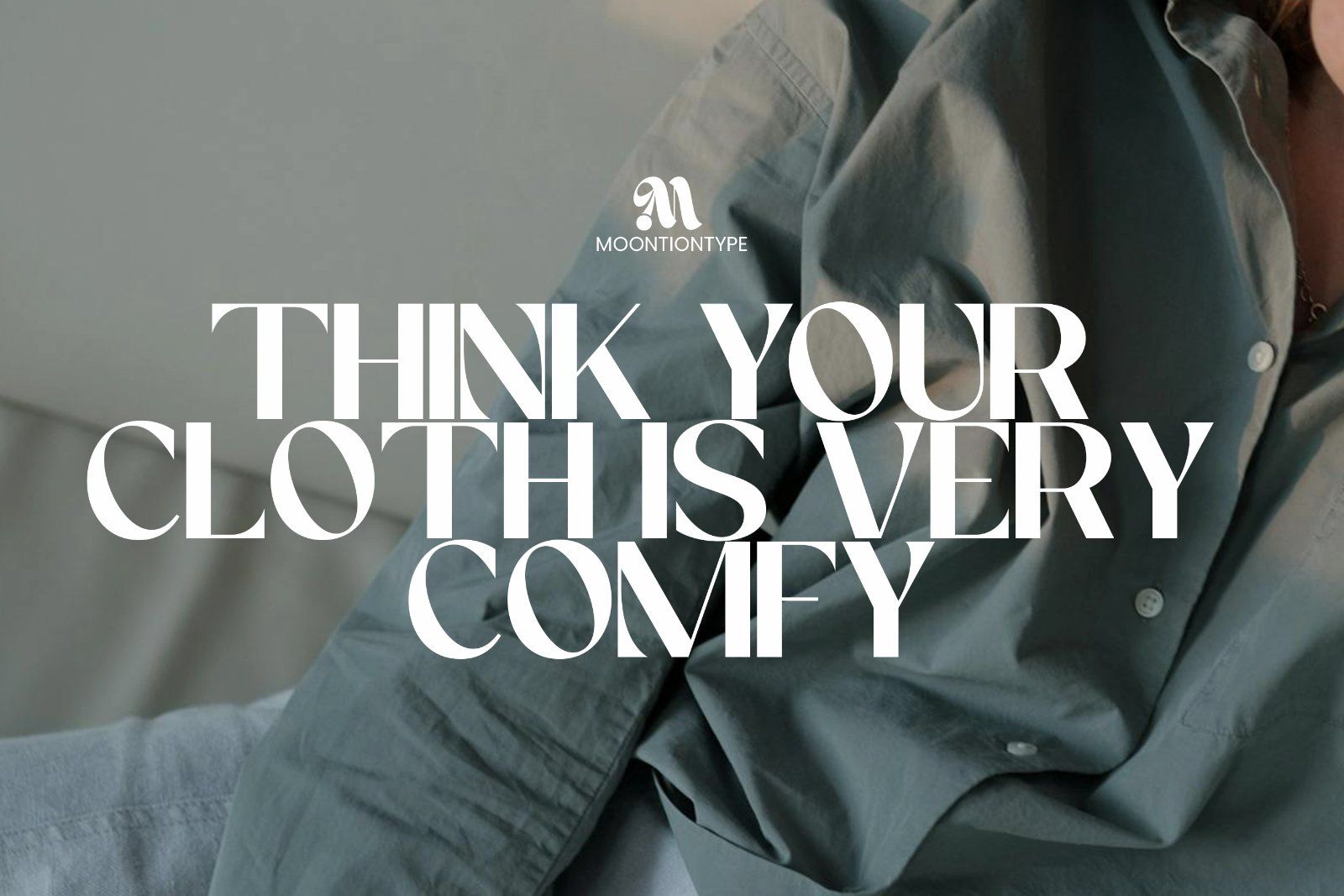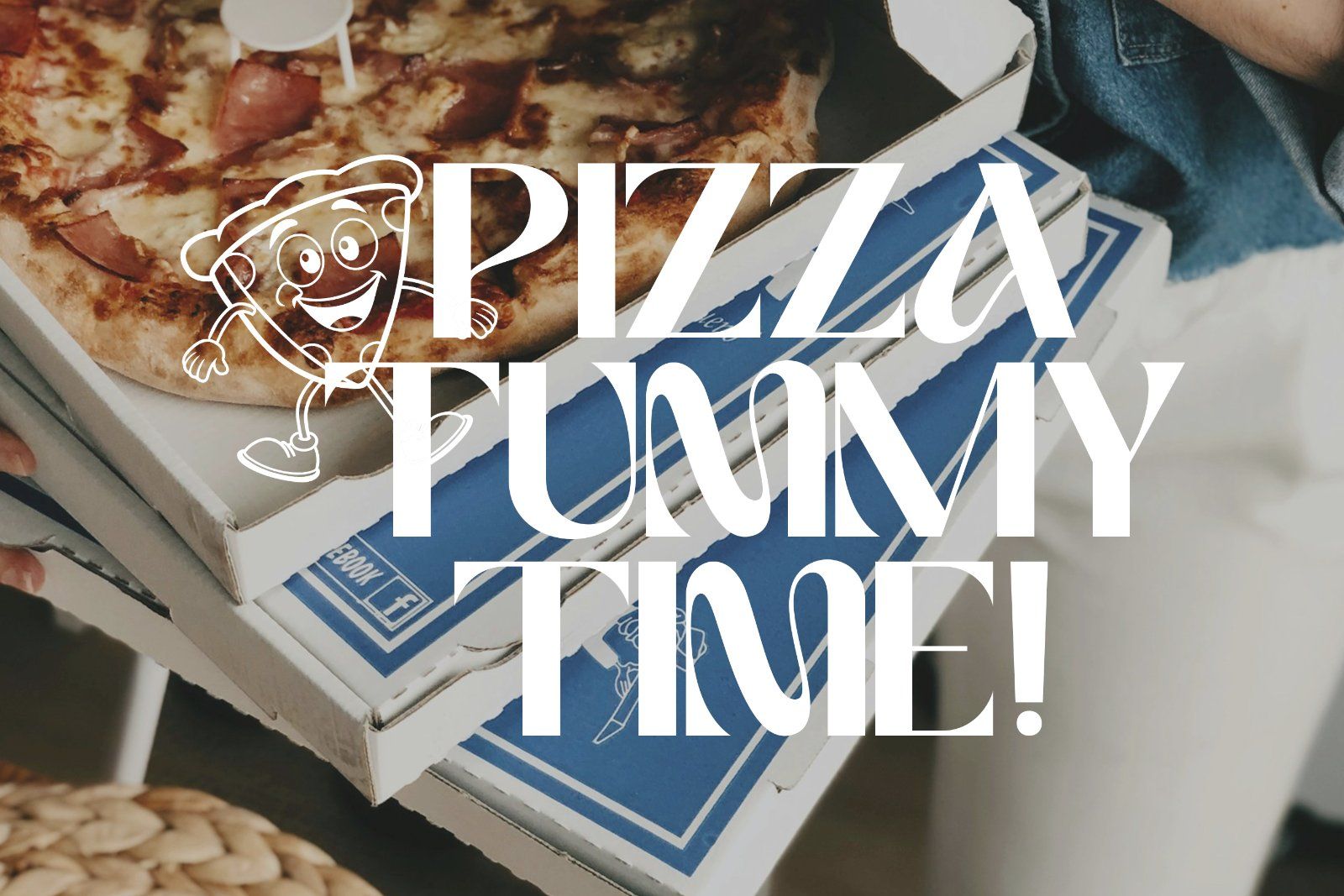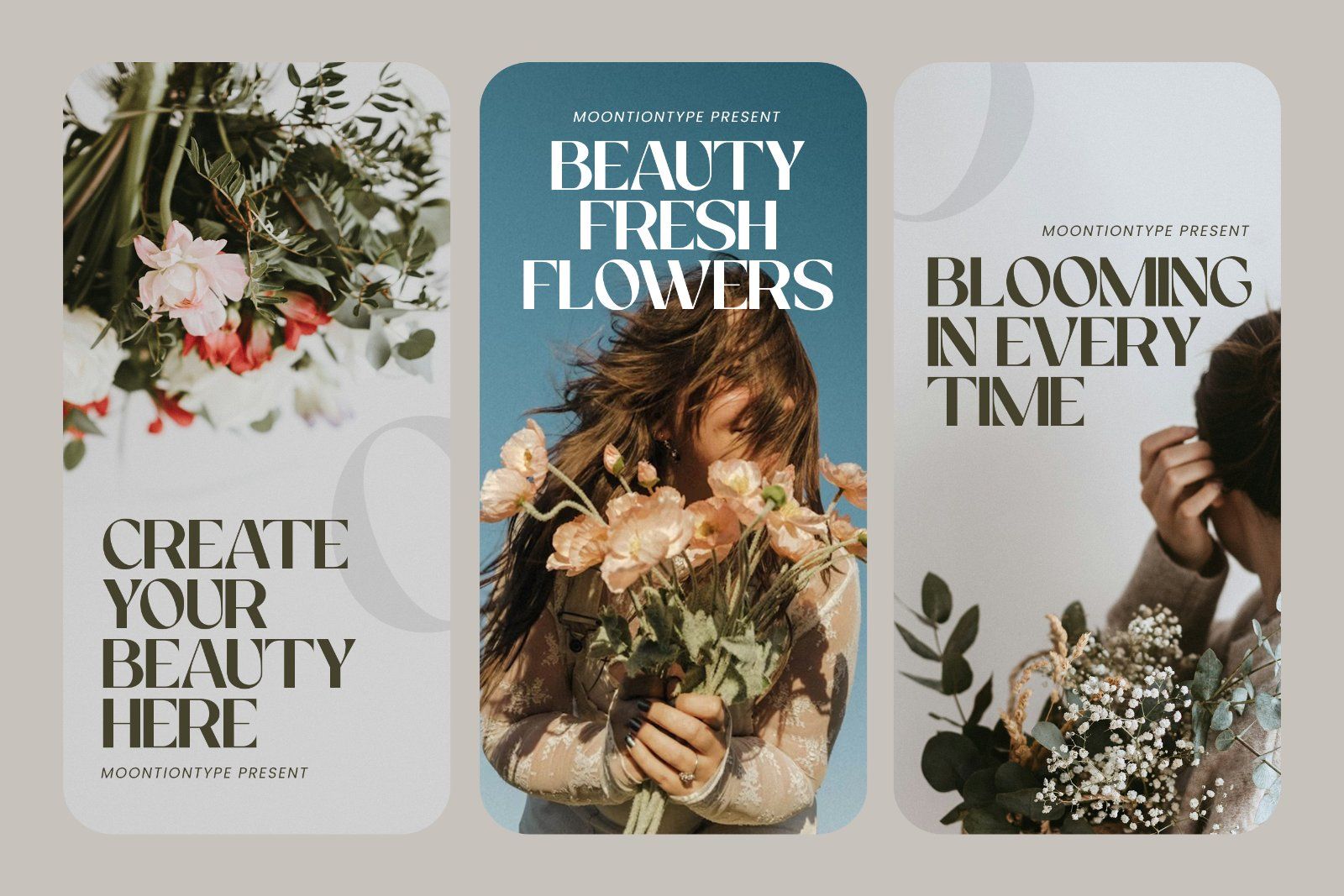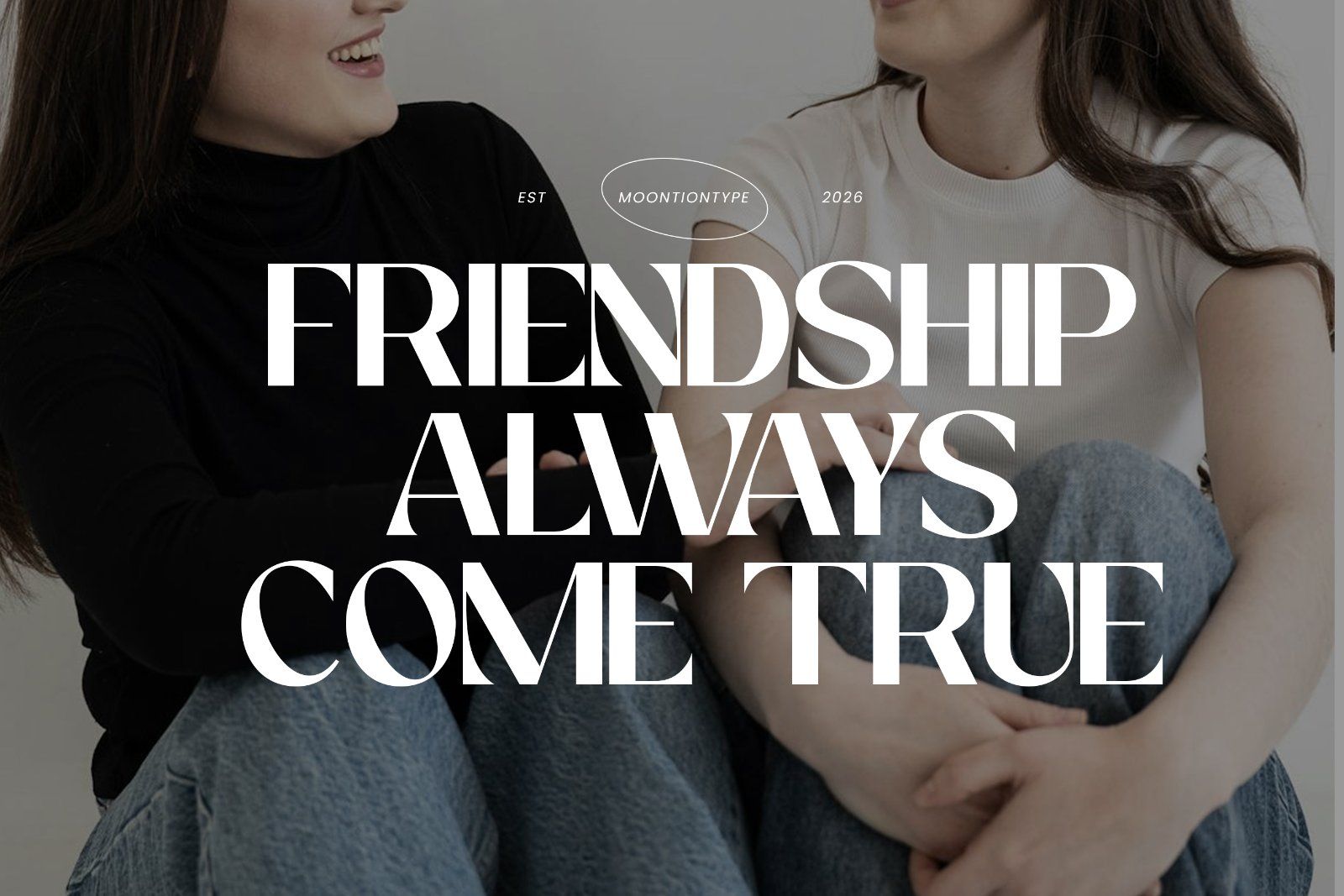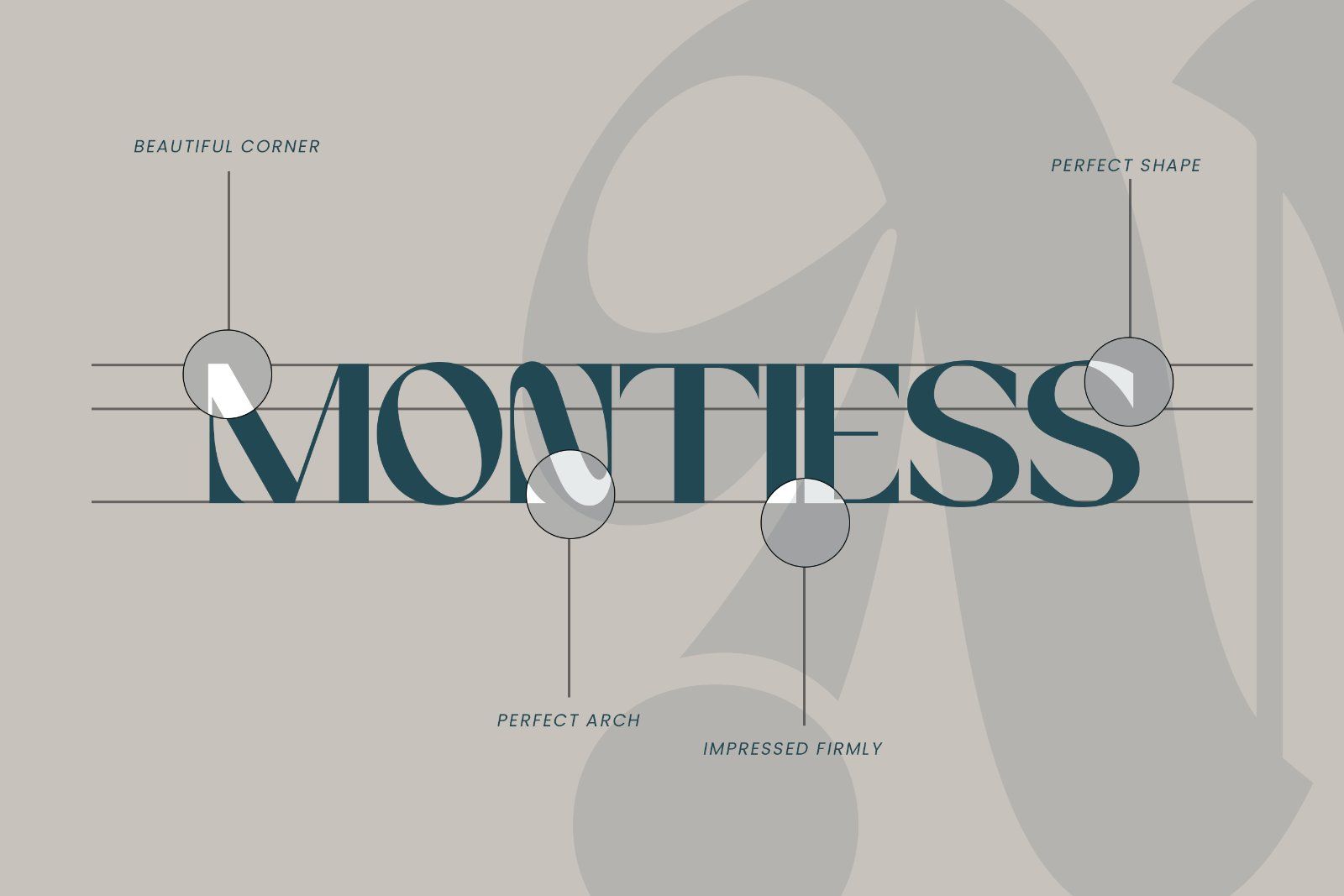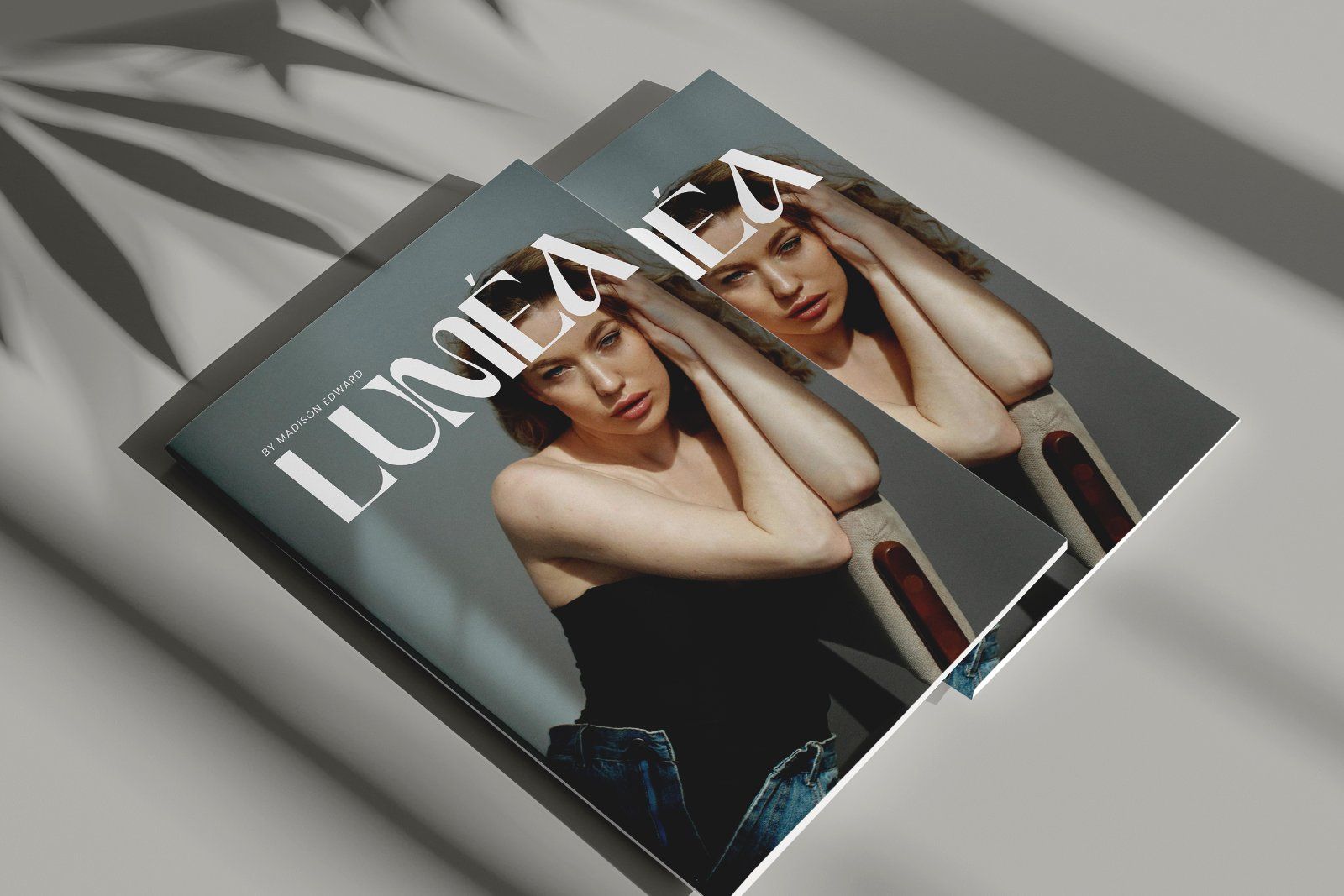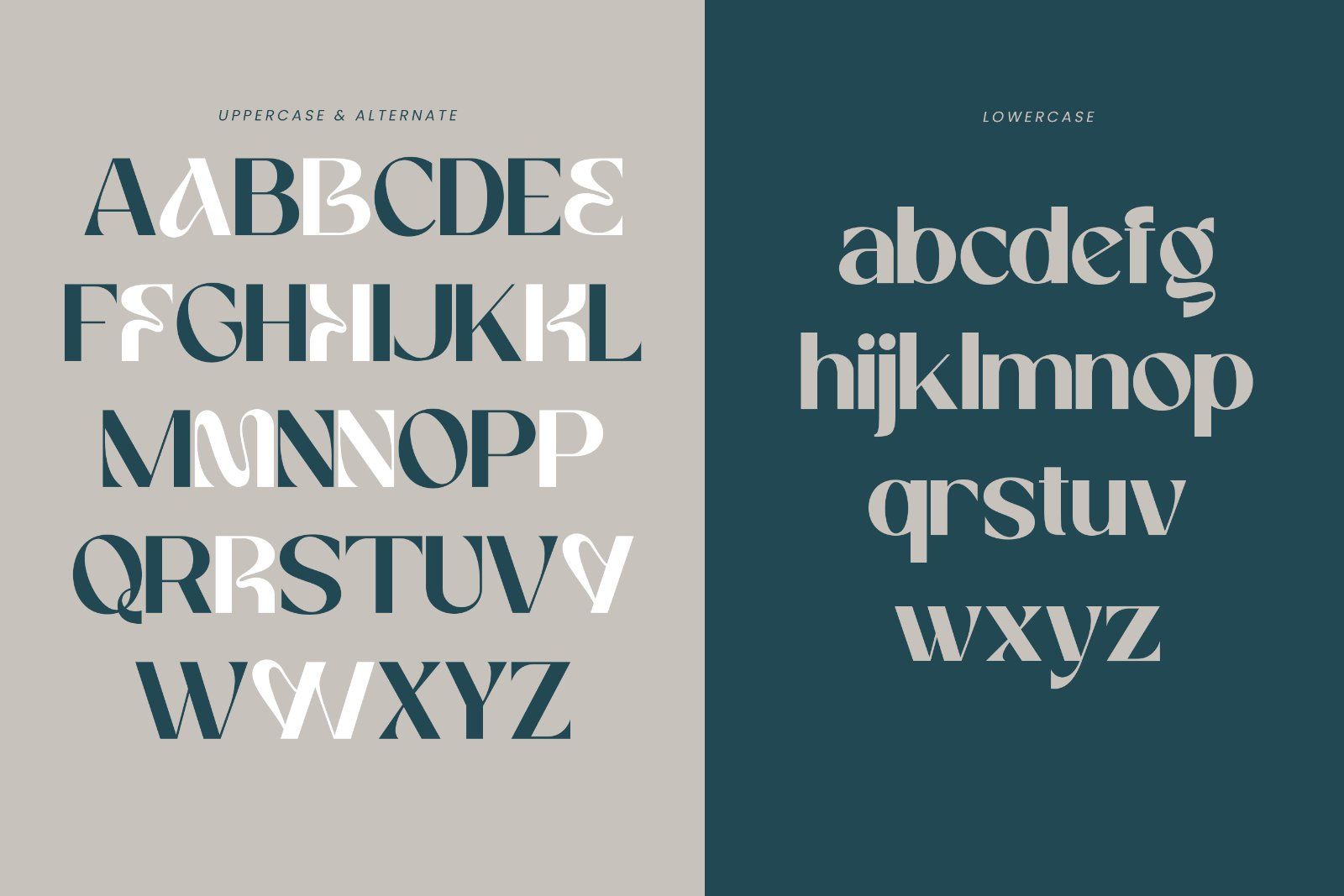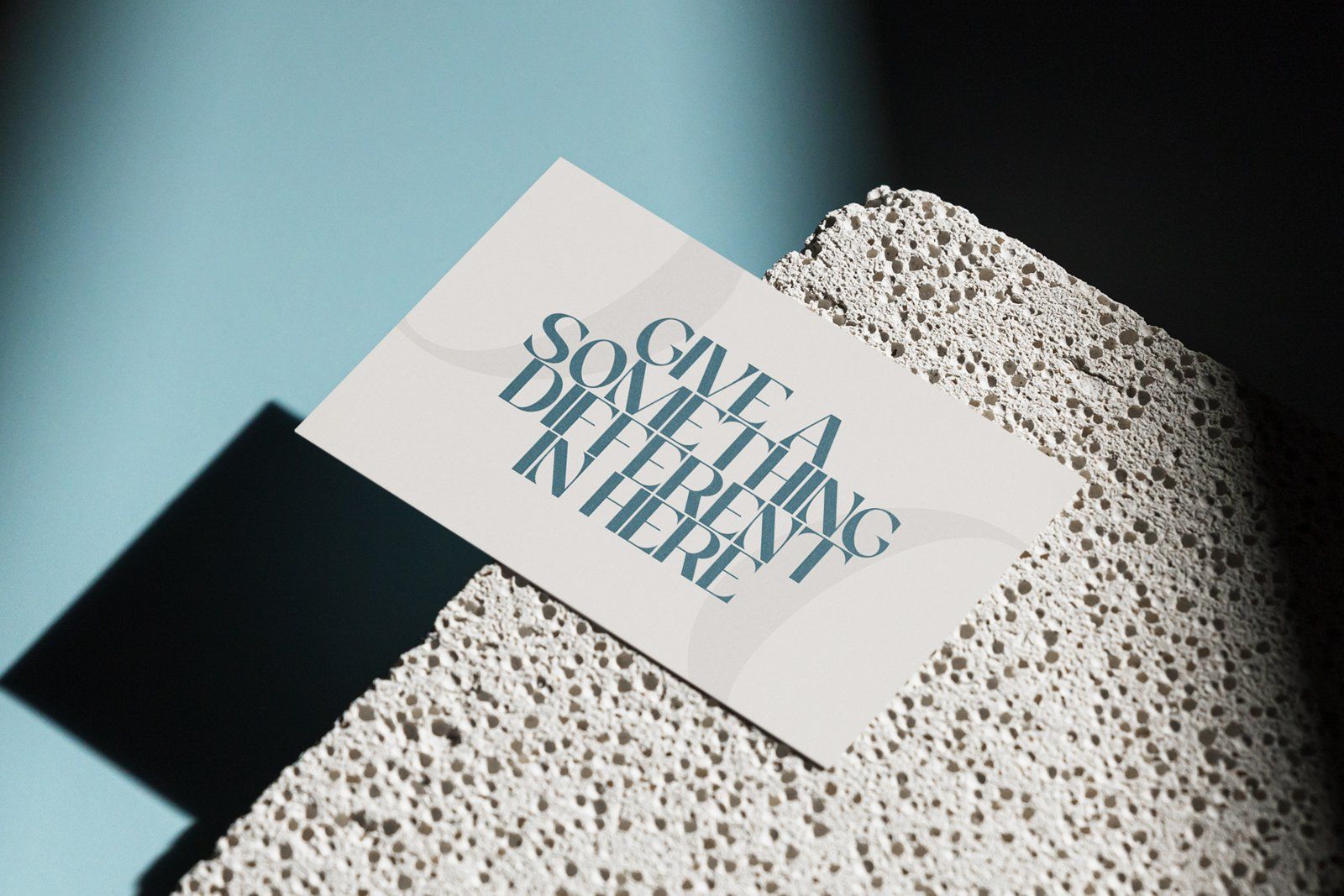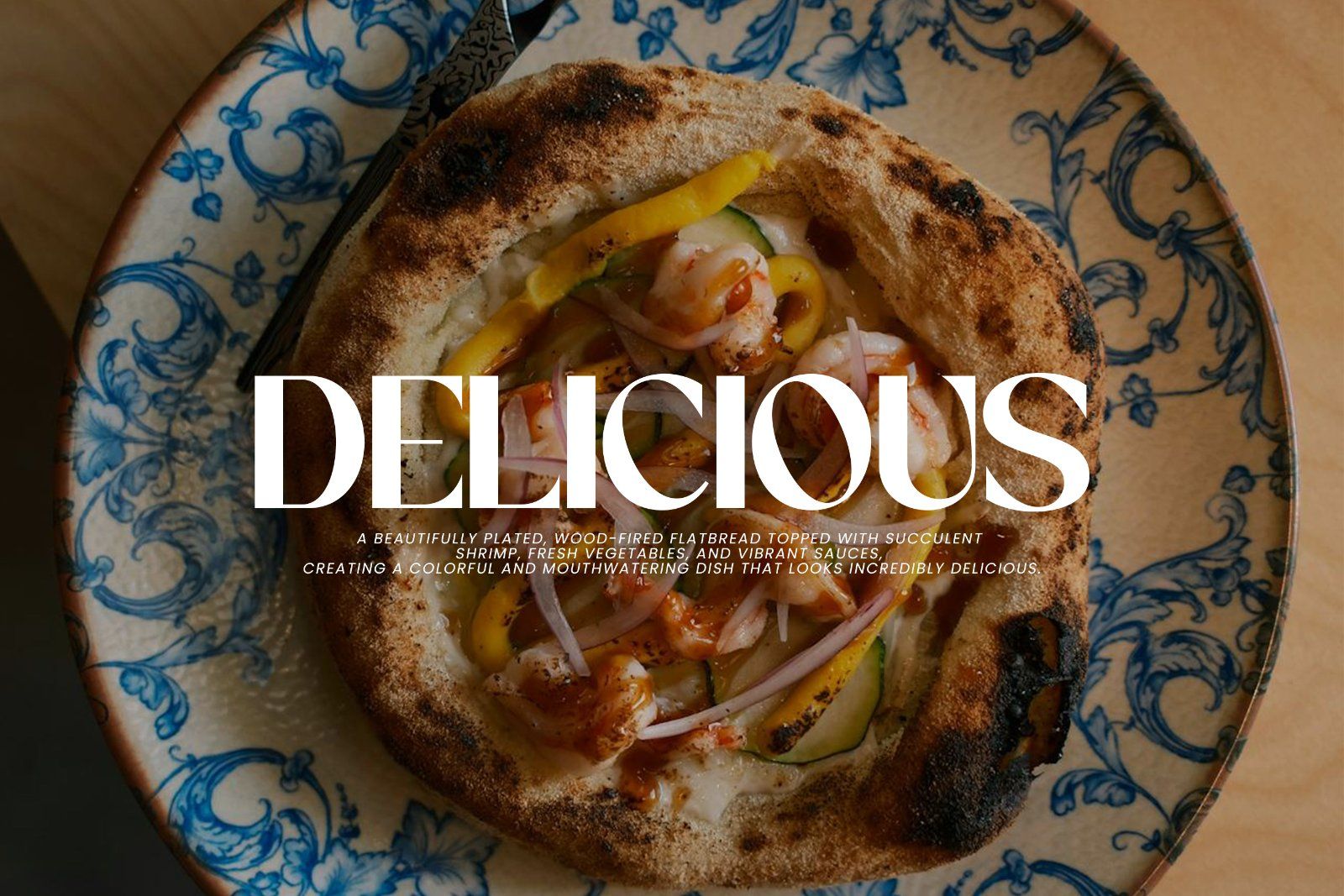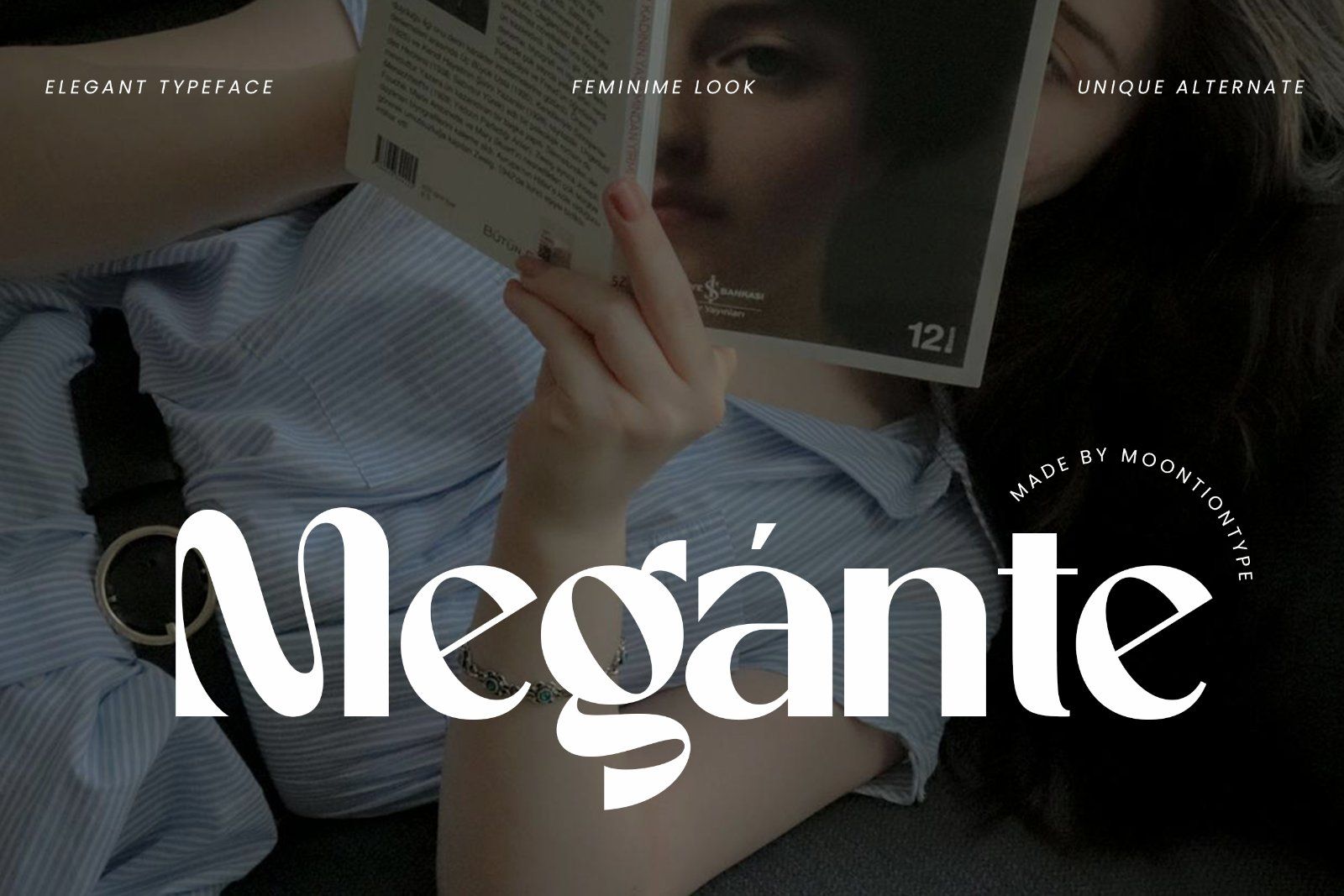
Megante is an elegant and refined sans serif typeface designed to bring a luxurious and feminine touch to your designs. With its graceful curves, stylish letterforms, and unique alternates, Megante creates a sophisticated and timeless visual impression.
This font is perfect for high-end branding, fashion projects, and editorial layouts that require a delicate yet strong personality. Its balance of modern elegance and classic sans serif structure makes it versatile for both digital and print design.
Megante features beautifully crafted alternate characters, allowing you to create distinctive and artistic typography with ease. Whether you're designing a fashion logo, magazine layout, or luxury packaging, this font delivers a polished and premium look.
Perfect For
• Fashion branding
• Luxury logos
• Editorial & magazines
• Beauty & cosmetic brands
• Wedding designs
• Social media content
• Packaging design
• Website typography
Megante is the perfect choice for designers who want a graceful, elegant, and luxurious typeface with a feminine touch. Ideal for creating premium and sophisticated brand identities.